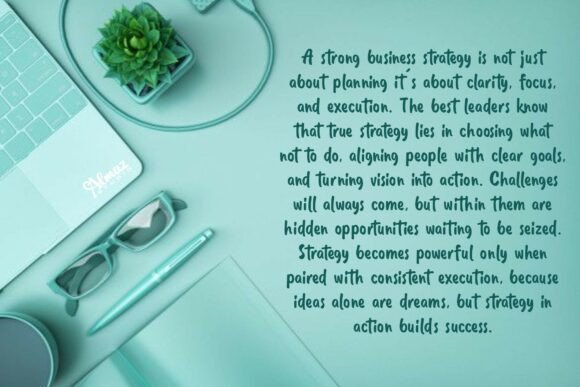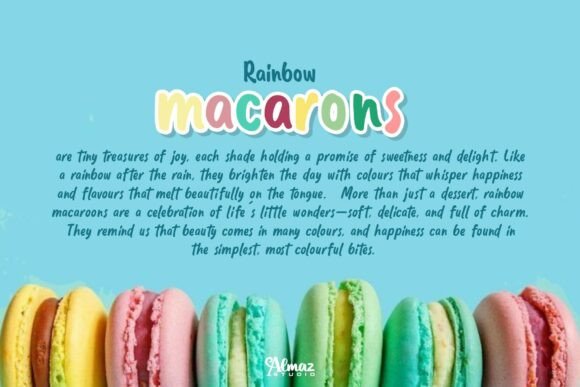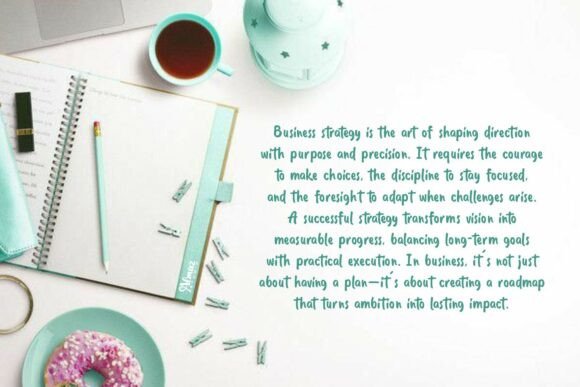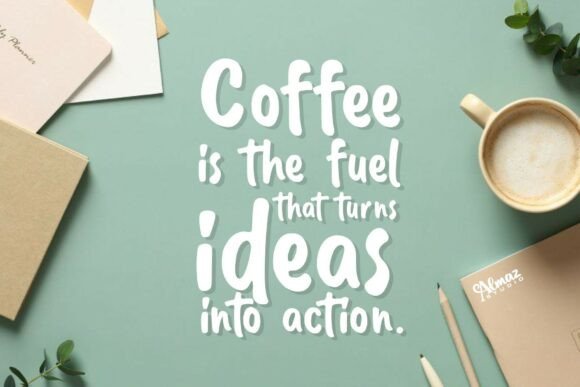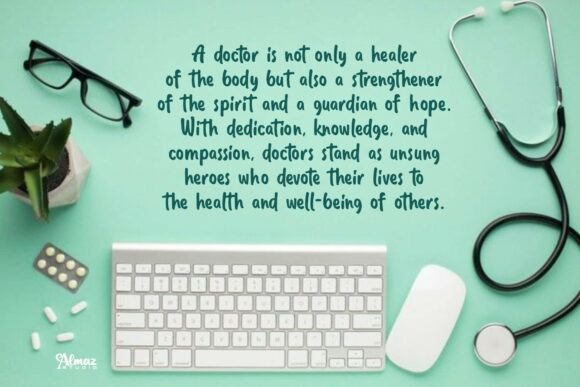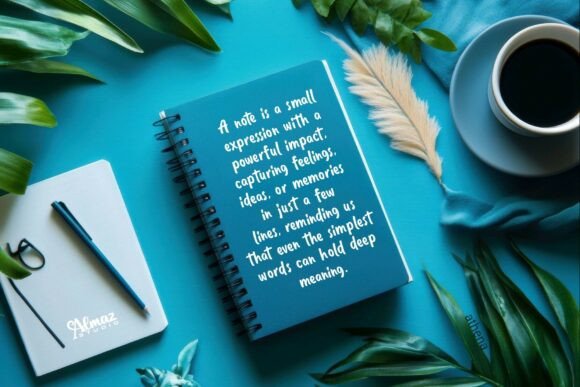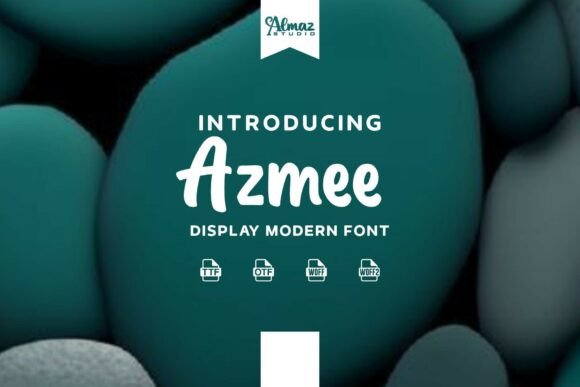
Introducing Azmee Font: The Perfect Blend of Playfulness and Boldness
Are you tired of using the same old fonts for your designs? Look no further than Azmee Font, a modern display font that is sure to add a touch of playfulness and friendliness to your projects. With its soft, rounded strokes and smooth curves, Azmee Font is the perfect choice for designers and crafters looking to create visually engaging and approachable designs.
A Font with a Personality
Azmee Font is designed to convey a sense of warmth and approachability. Its casual, handwritten feel makes it perfect for designs that aim to feel joyful, creative, and inviting. The font’s bold personality is balanced by its clean and expressive design, making it easy to read and visually engaging. Whether you’re working on a branding project, children’s product, or creative endeavor, Azmee Font is sure to make a lasting impression.
Key Features of Azmee Font
- Soft, rounded strokes: Azmee Font features soft, rounded strokes that give it a friendly and approachable feel.
- Smooth curves: The font’s smooth curves add to its playful and creative personality.
- Casual, handwritten feel: Azmee Font’s casual, handwritten feel makes it perfect for designs that aim to feel joyful and inviting.
- Clean and expressive design: The font’s clean and expressive design makes it easy to read and visually engaging.
Use Cases for Azmee Font
Azmee Font is a versatile font that can be used in a variety of design projects, including:
- Branding: Use Azmee Font to create a bold and playful brand identity that stands out from the crowd.
- Children’s products: The font’s playful and friendly personality makes it perfect for children’s products, such as toys, books, and educational materials.
- Creative projects: Azmee Font is ideal for creative projects, such as art, design, and music.
- Logos: Use Azmee Font to create a unique and memorable logo that reflects your brand’s personality.
- Packaging: The font’s bold and playful personality makes it perfect for packaging designs that need to stand out on store shelves.
- Social media graphics: Azmee Font is perfect for social media graphics, such as Facebook posts, Instagram stories, and Twitter headers.
- Posters: Use Azmee Font to create eye-catching posters that grab attention and convey a message.
- Fun promotional designs: The font’s playful and creative personality makes it perfect for fun promotional designs, such as flyers, brochures, and business cards.
Why Choose Azmee Font?
Azmee Font is the perfect choice for designers and crafters looking to add a touch of playfulness and friendliness to their designs. With its bold personality, clean design, and versatility, Azmee Font is sure to become a go-to font for a wide range of design projects. Here are just a few reasons why you should choose Azmee Font:
- Unique personality: Azmee Font has a unique personality that sets it apart from other fonts.
- Versatility: The font is versatile and can be used in a wide range of design projects.
- Easy to read: Azmee Font is easy to read, making it perfect for designs that need to convey a message.
- High-quality design: The font is designed to high standards, ensuring that it looks great in any design.
In conclusion, Azmee Font is a modern display font that is perfect for designers and crafters looking to add a touch of playfulness and friendliness to their designs. With its bold personality, clean design, and versatility, Azmee Font is sure to become a go-to font for a wide range of design projects. Whether you’re working on a branding project, children’s product, or creative endeavor, Azmee Font is the perfect choice.